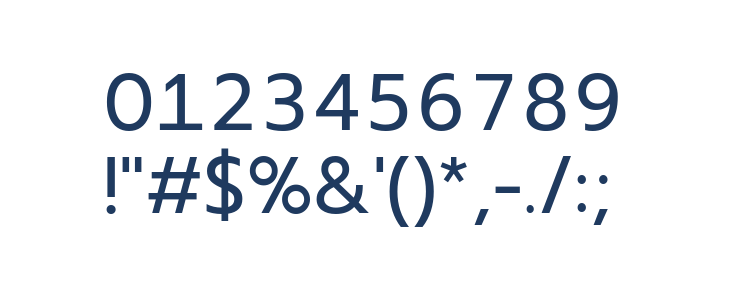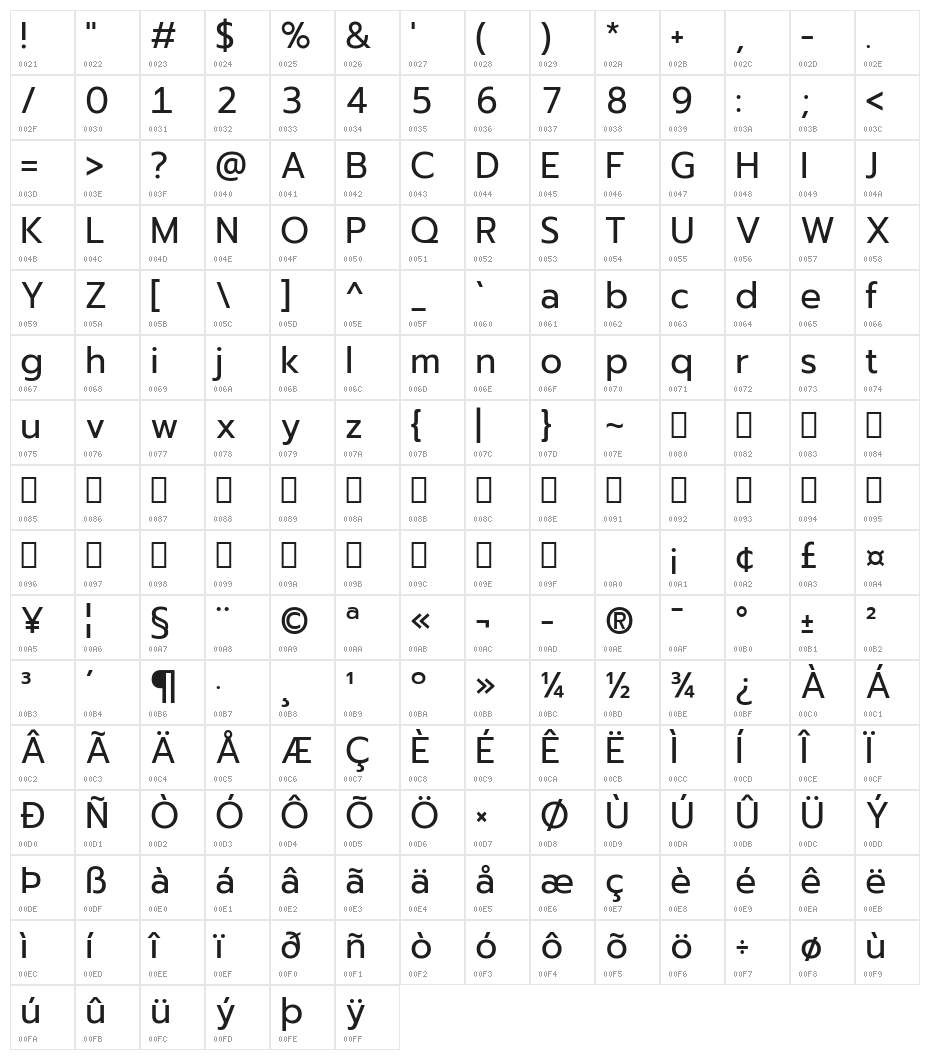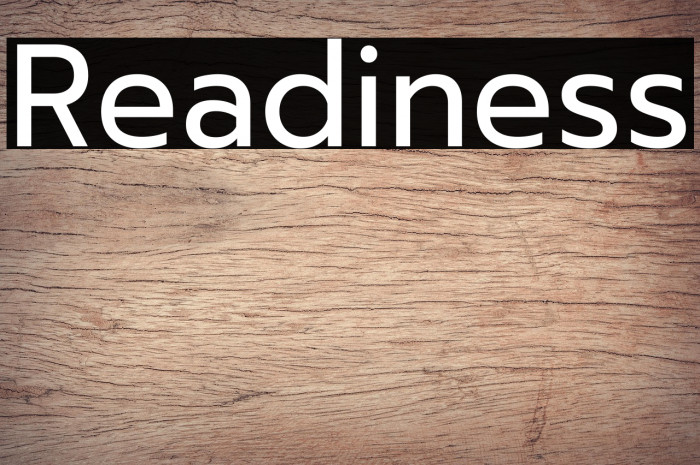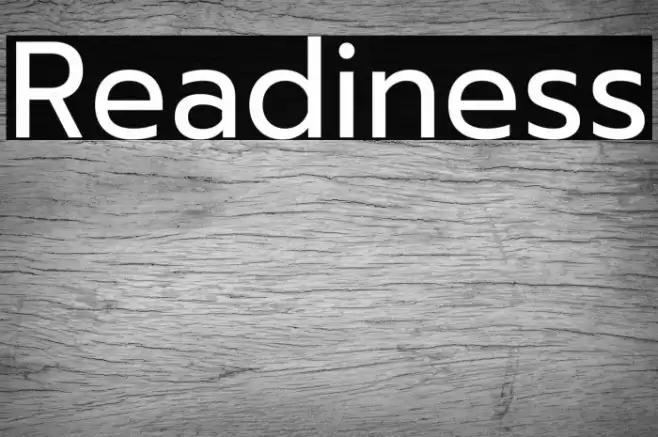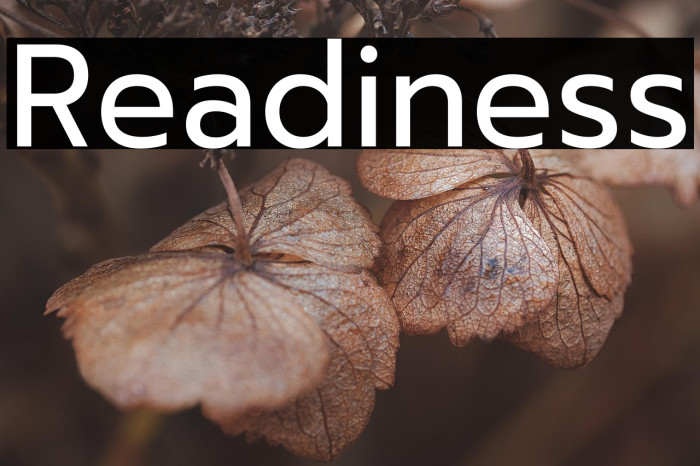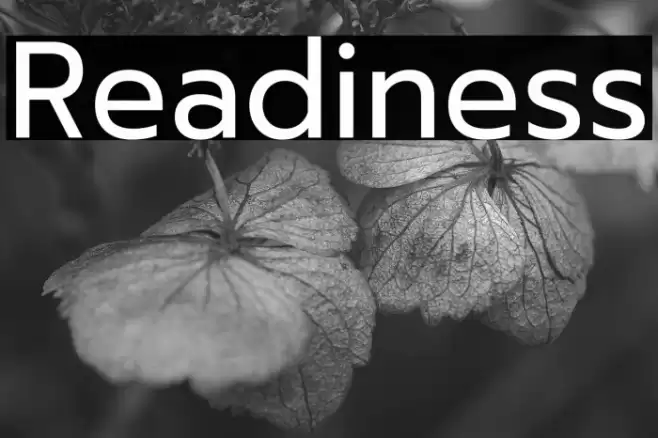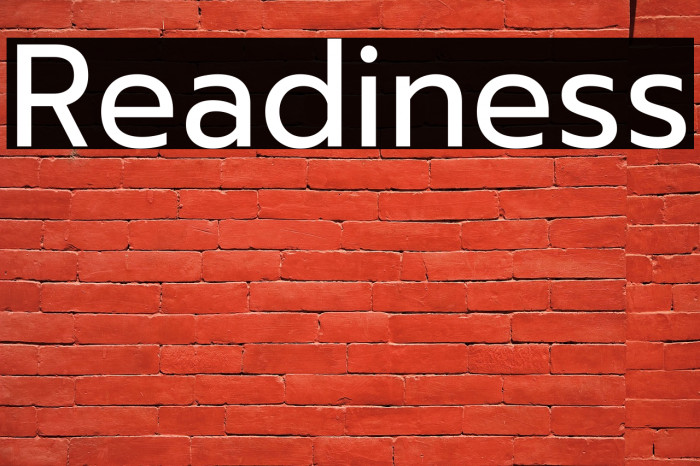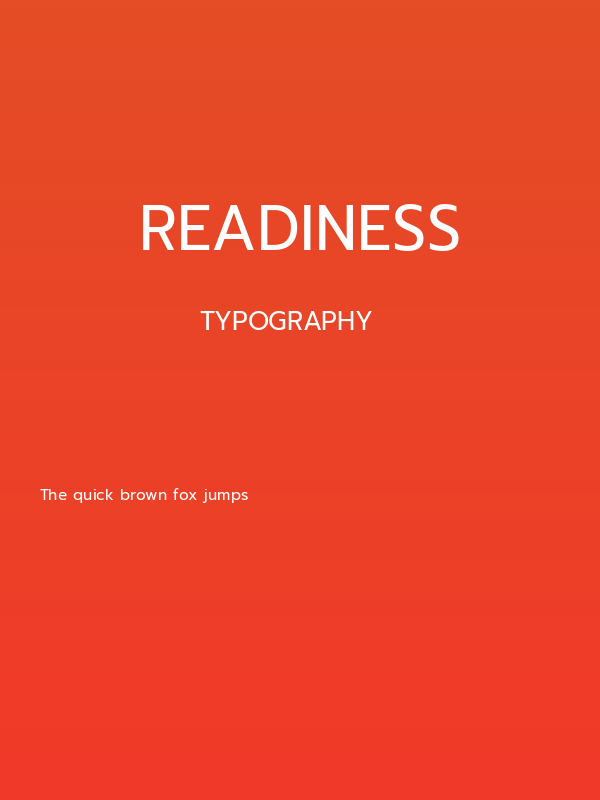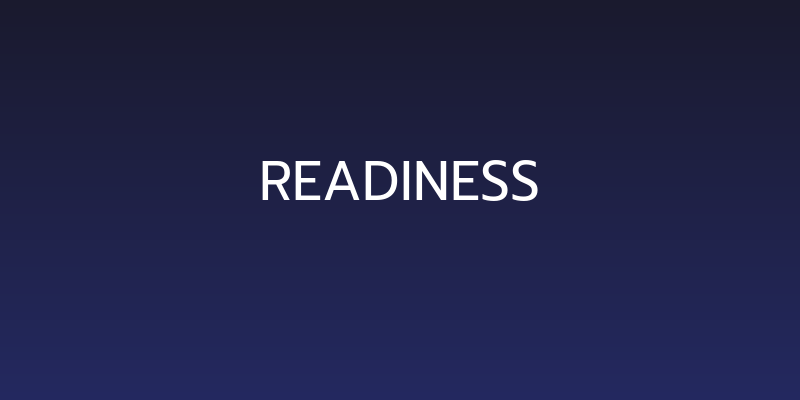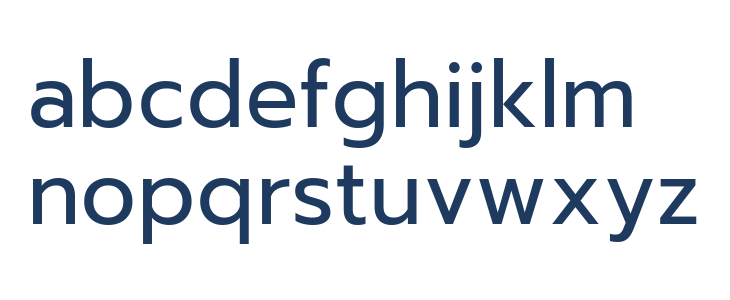
Readiness Font
Readiness Description
This font features a clean and modern sans-serif design with uniform stroke widths, contributing to a highly legible and versatile appearance. The characters are well-proportioned, with a slightly geometric influence that adds a contemporary feel. The uppercase letters are bold and assertive, while the lowercase letters maintain a friendly and approachable look. The numerals are clear and distinct, making them suitable for both text and numerical data. Special characters are designed with simplicity and clarity, ensuring they blend seamlessly with the rest of the typeface.
| Proposed Projects | Ideal for branding, web design, corporate materials, and editorial layouts. |